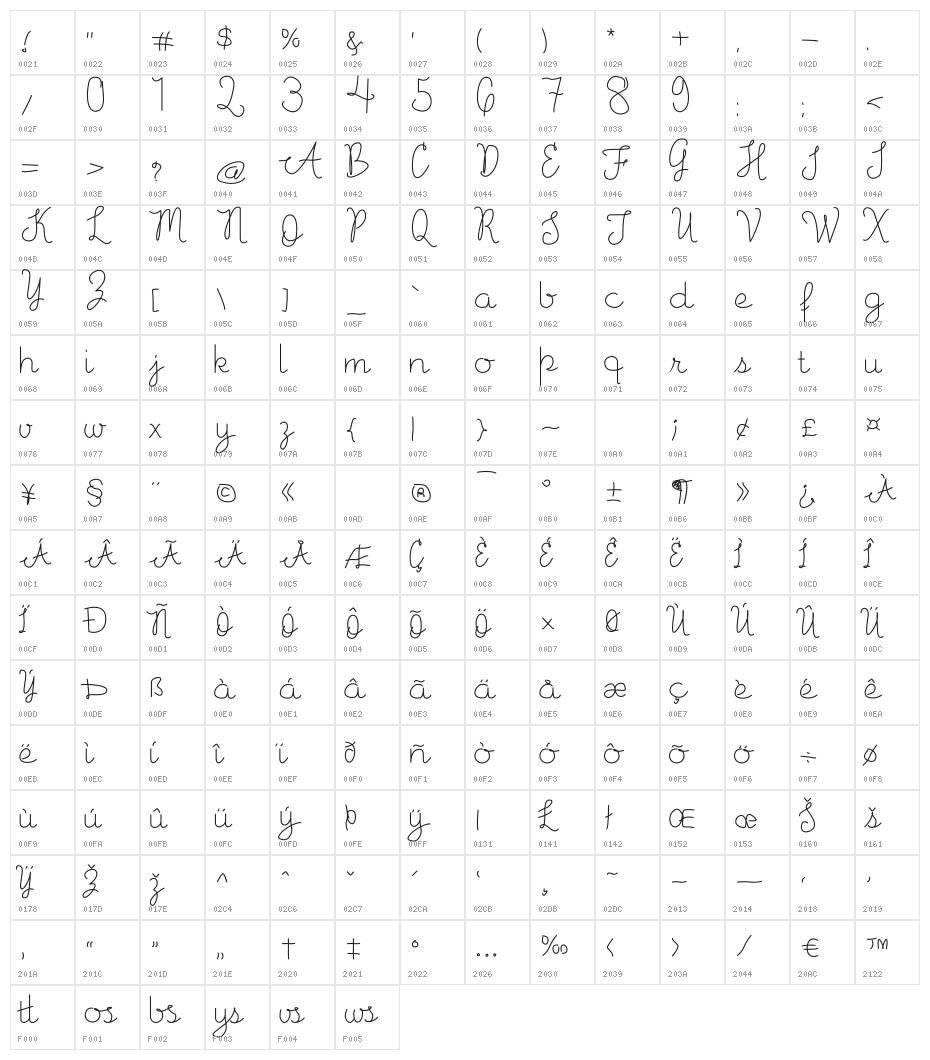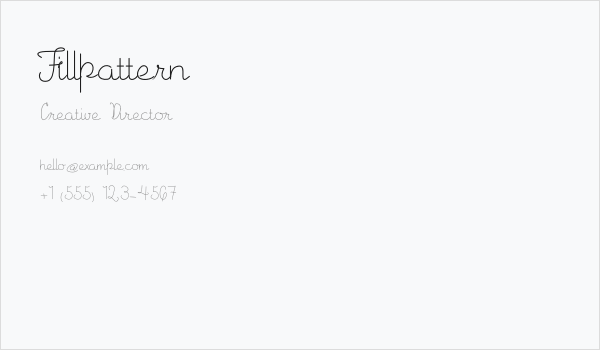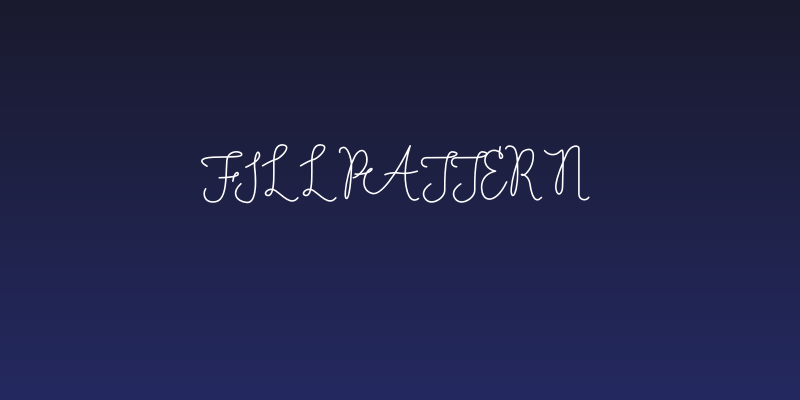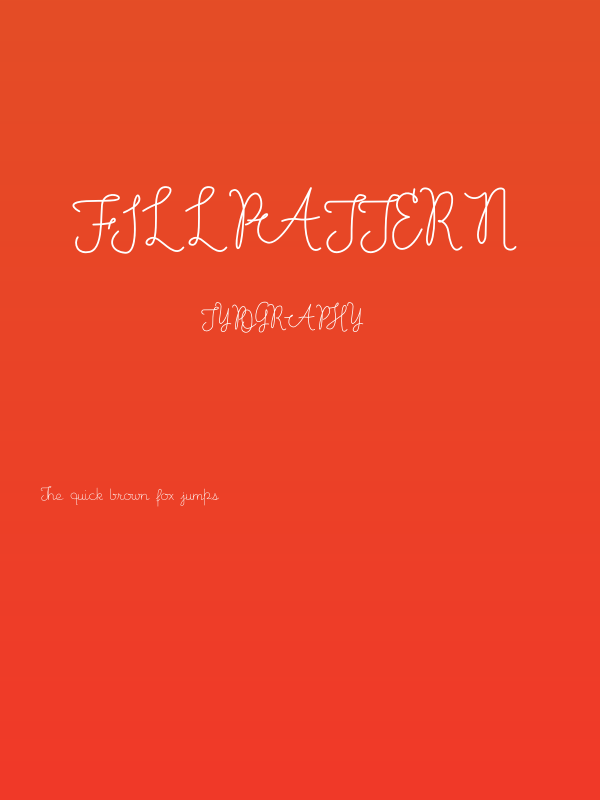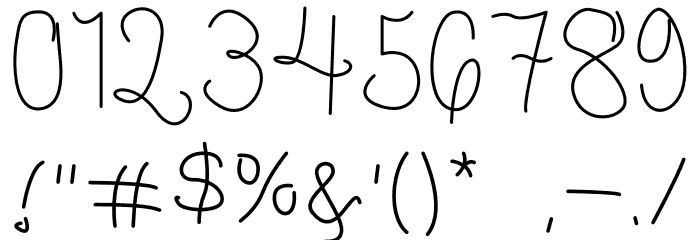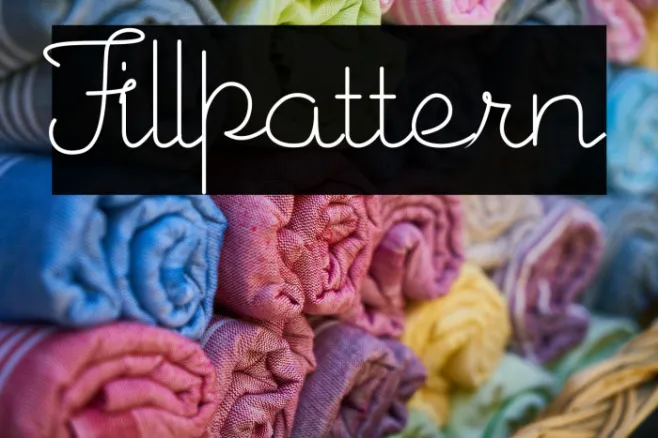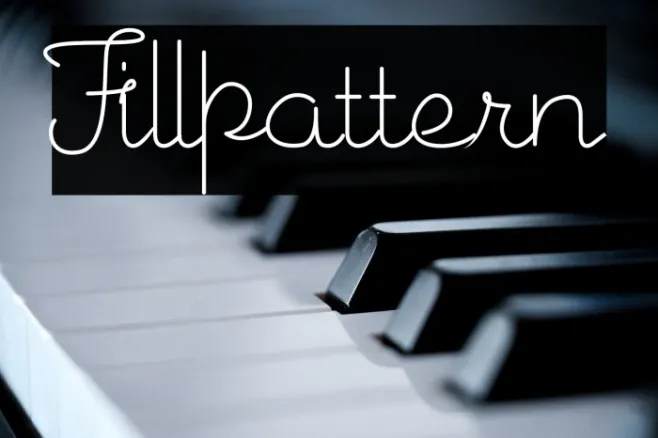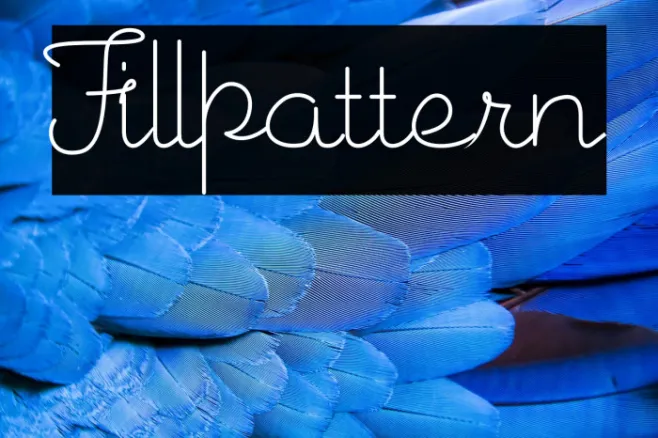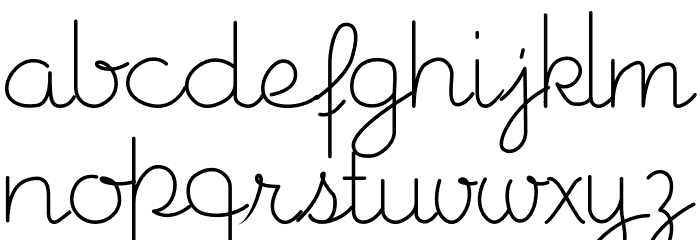
Fillpattern Font
Fillpattern Description
This font features a playful and whimsical script style, characterized by its flowing, interconnected letters. The uppercase letters exhibit a unique, looping design that adds a touch of elegance and creativity. The lowercase letters maintain a consistent flow, enhancing readability while preserving the font's artistic flair. Numbers and special characters are designed with the same fluidity, ensuring a cohesive look across all text elements. The overall appearance is light and airy, making it suitable for projects that require a personal, handwritten touch.
| Proposed Projects | Ideal for wedding invitations, greeting cards, personal branding, and creative projects that require a handwritten touch. |